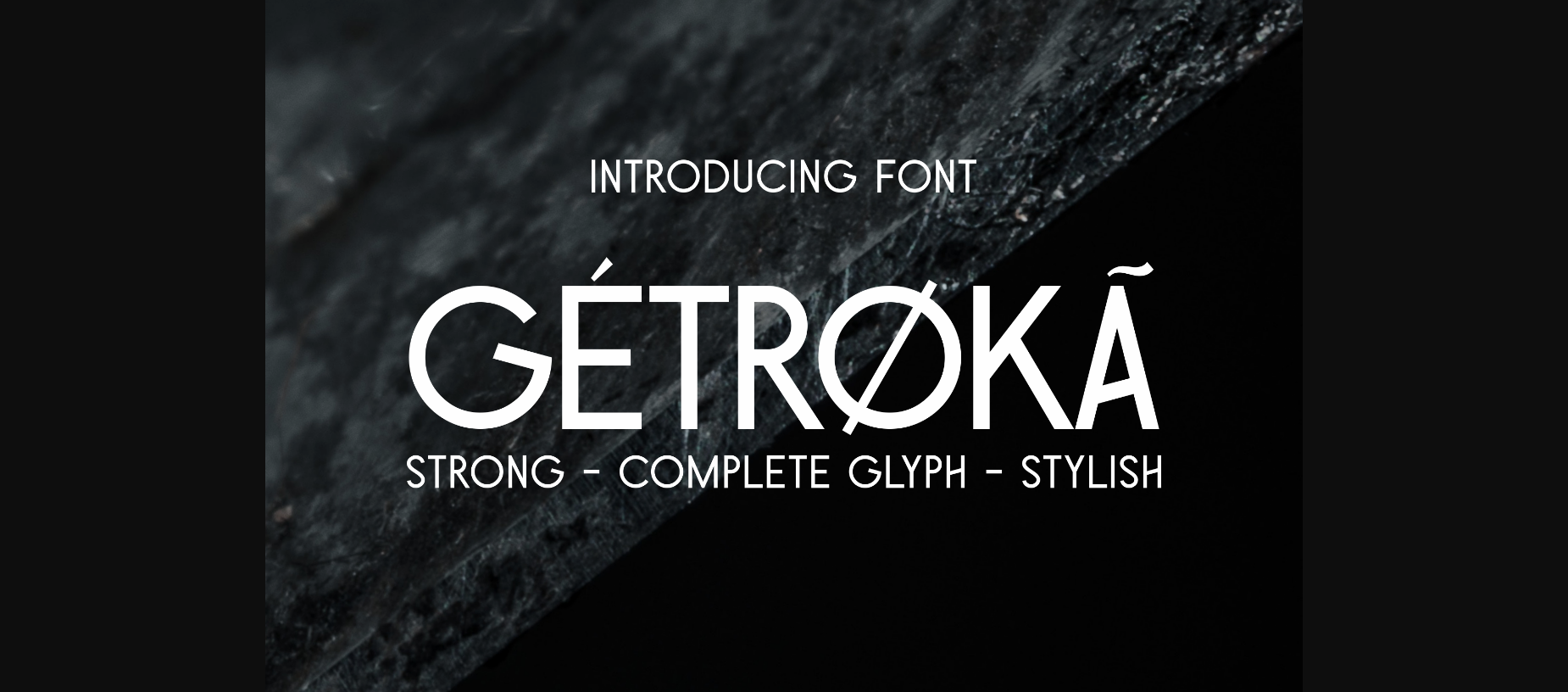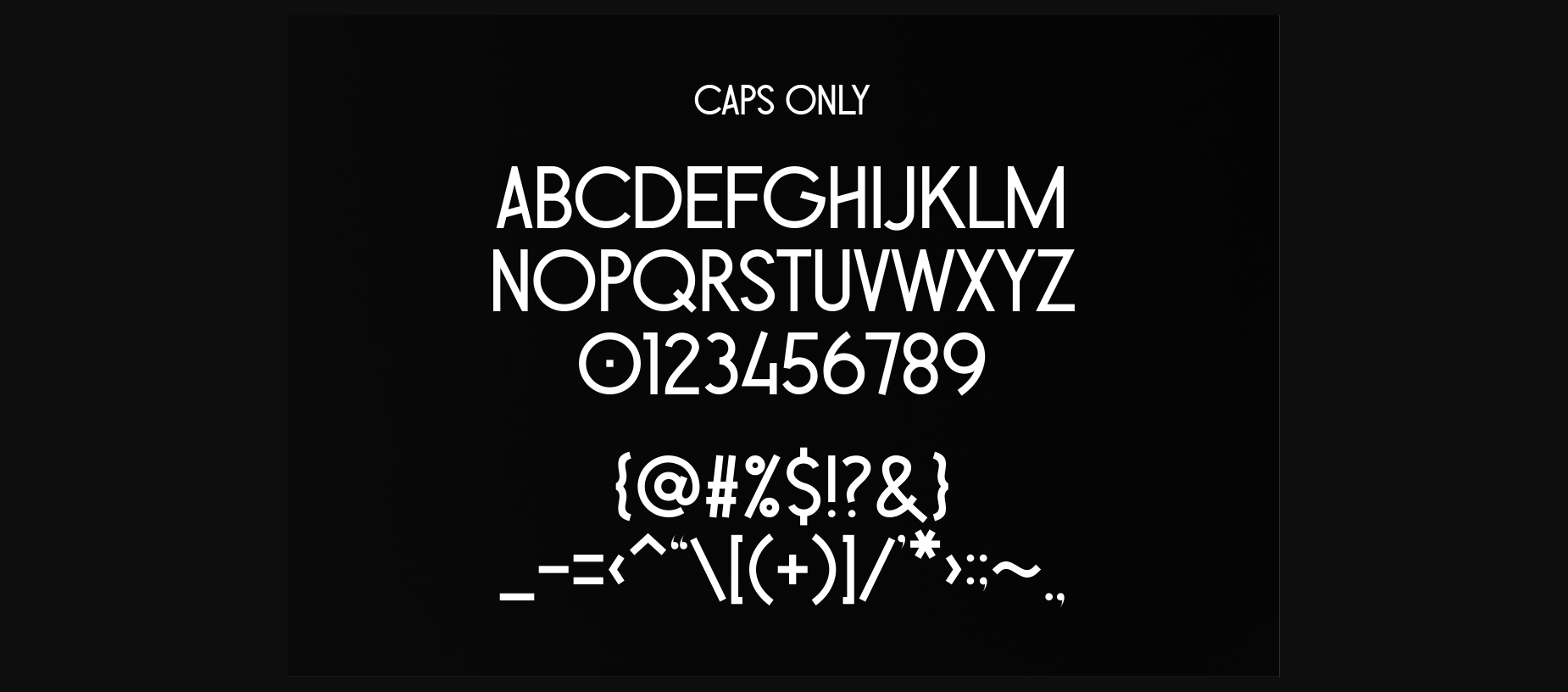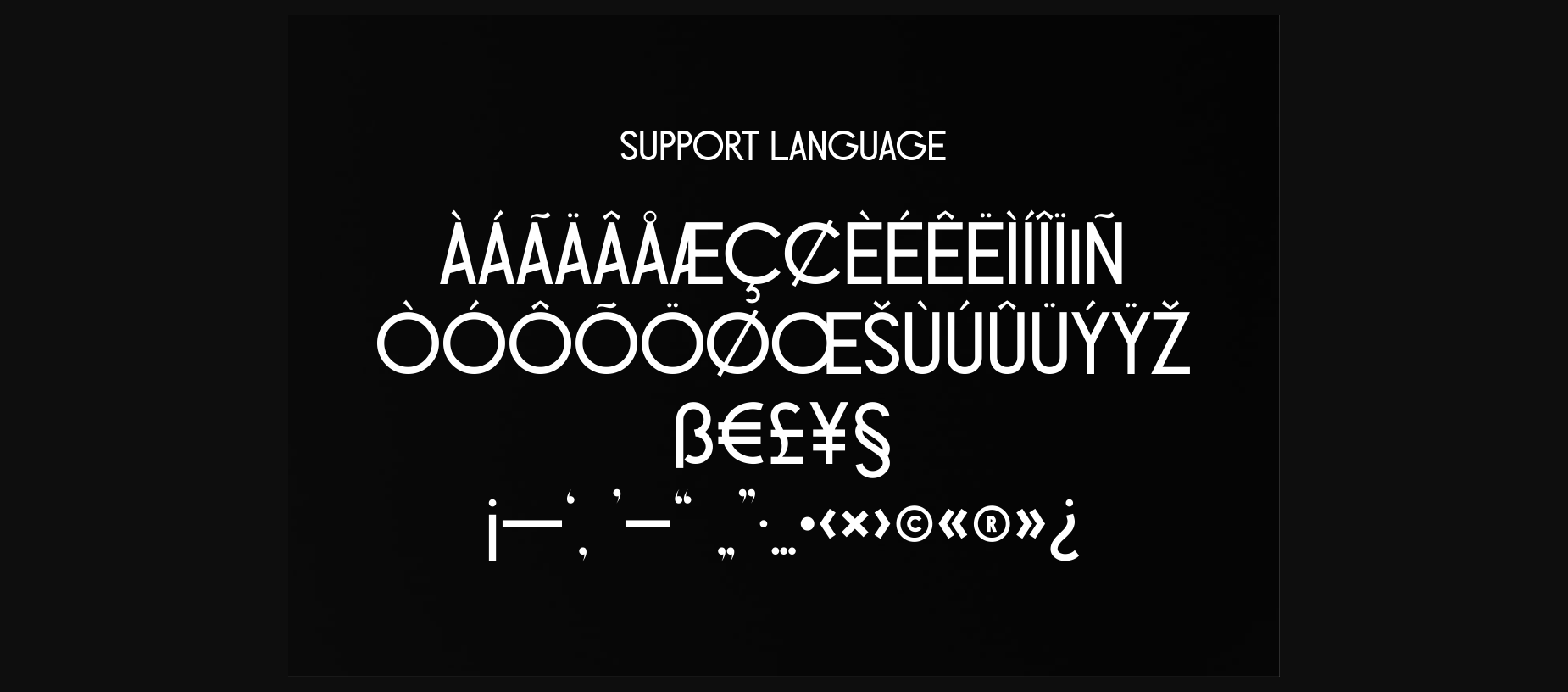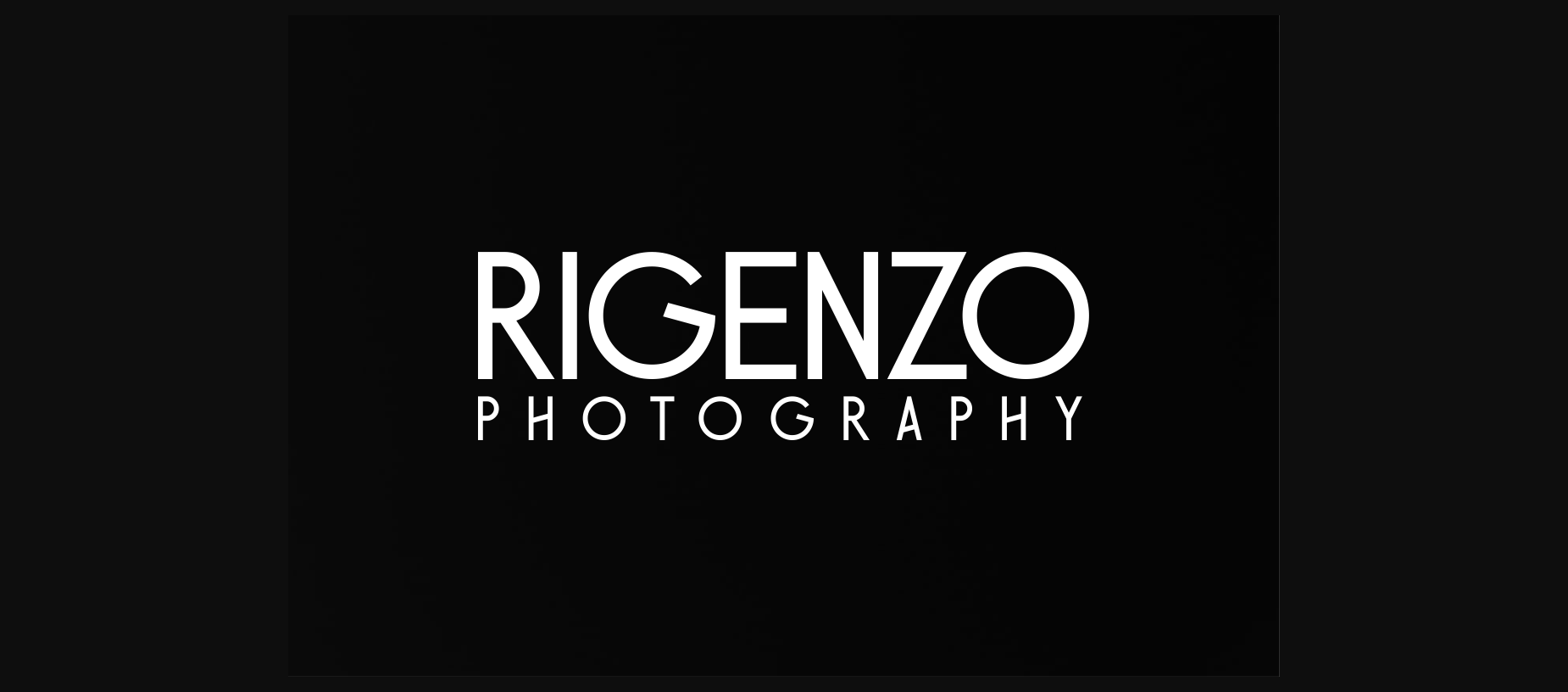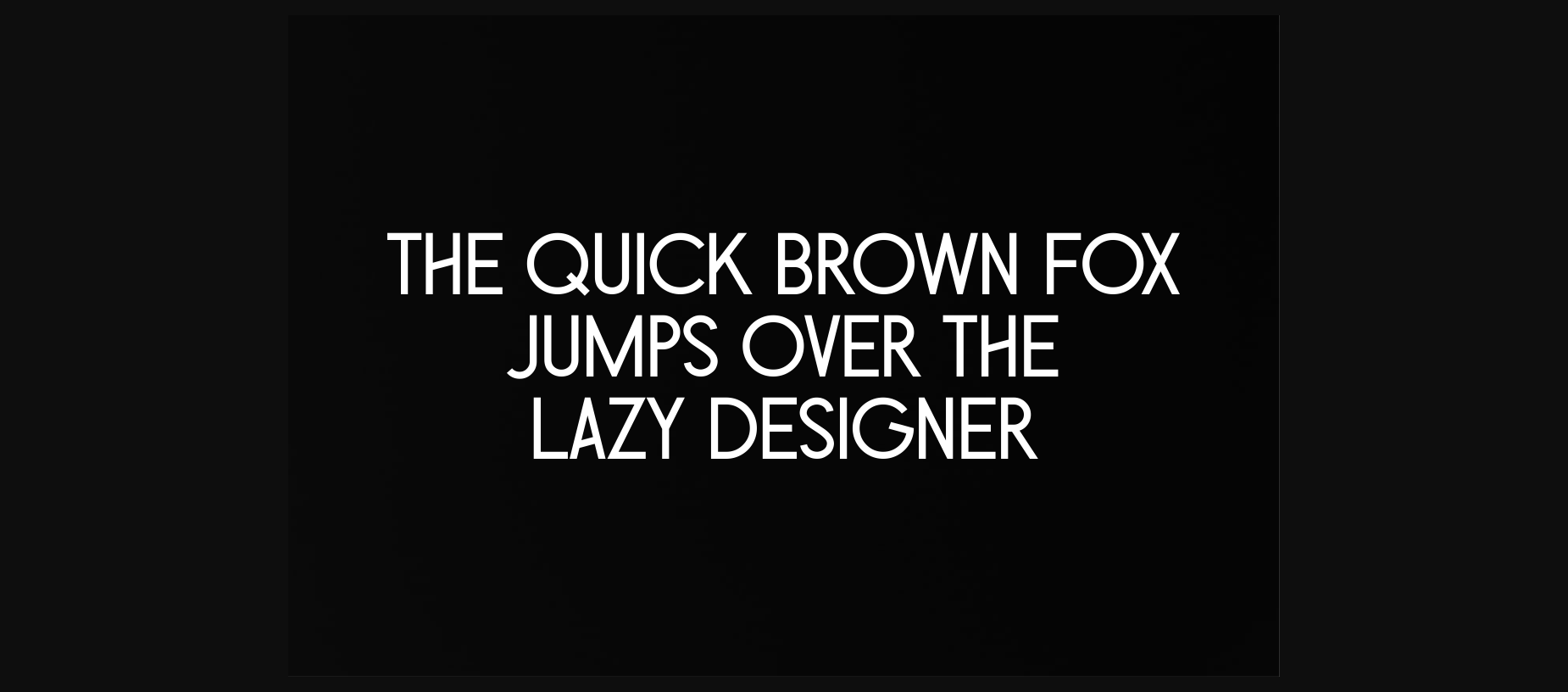
Getroka Font
About Getroka Font
The font combination of stylish and strong is distributed for large companies, equipped with punctuation marks for several countries, and can be modified according to needs.